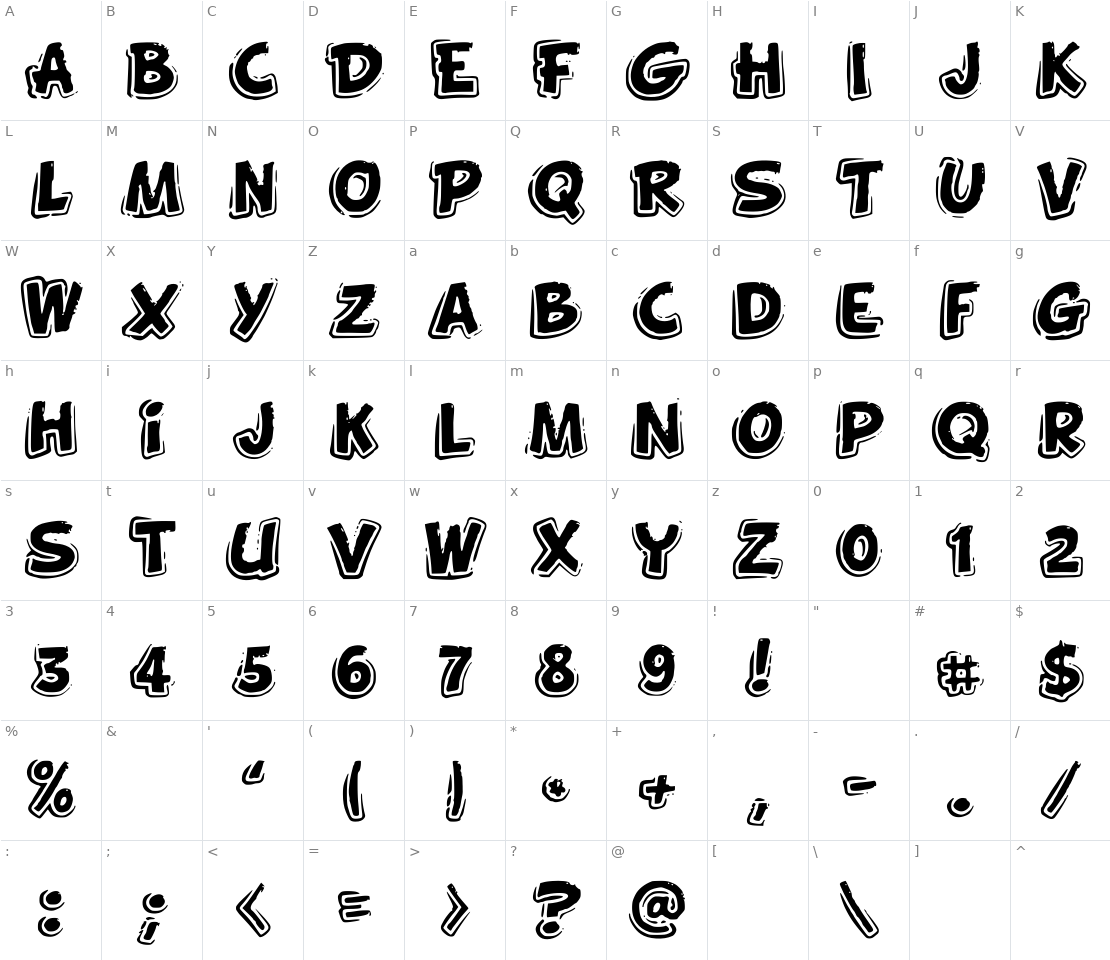
Funny Kid
Funny Kid is a chunky, playful comic typeface from Leonard Posavec with bold letterforms and a built-in 3D shadow effect that gives each character a pop-off-the-page quality. The rounded, childish shapes lean fully into cartoon territory, making it a natural fit for children's books, game titles, toy packaging, and anything that needs to feel big, fun, and loud. Best kept to headlines and short text where the exaggerated weight and depth can do their thing.